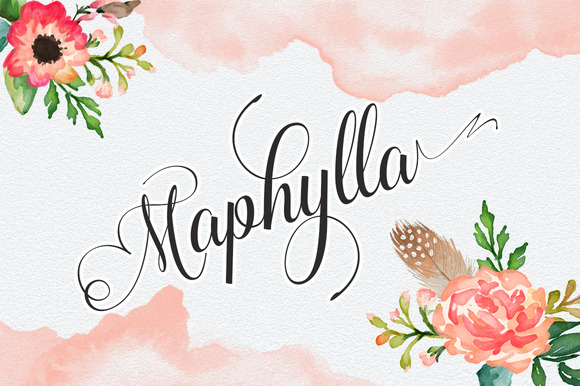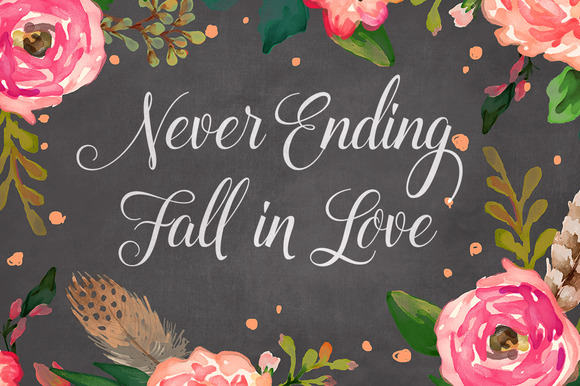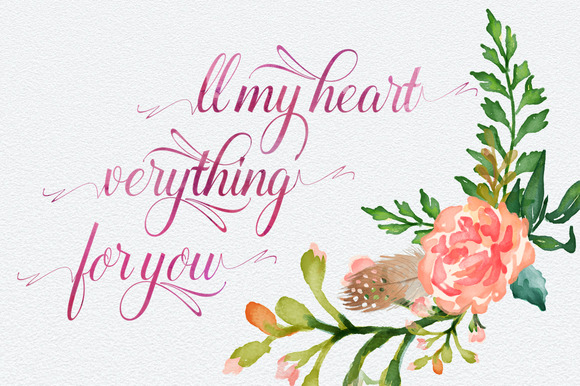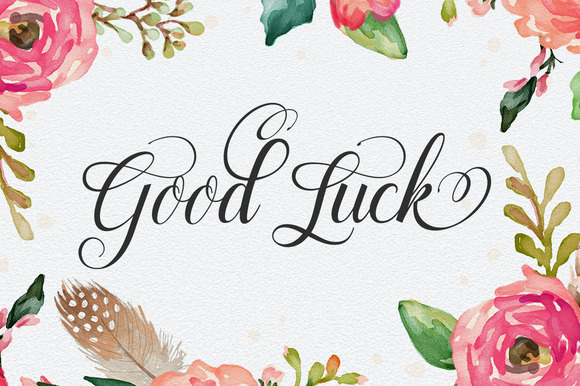
Maphylla Font
About Maphylla Font
Maphylla is a strong script with a unique touch. It features a total of 378 glyphs and is packed with beautiful swashes and swooshes.